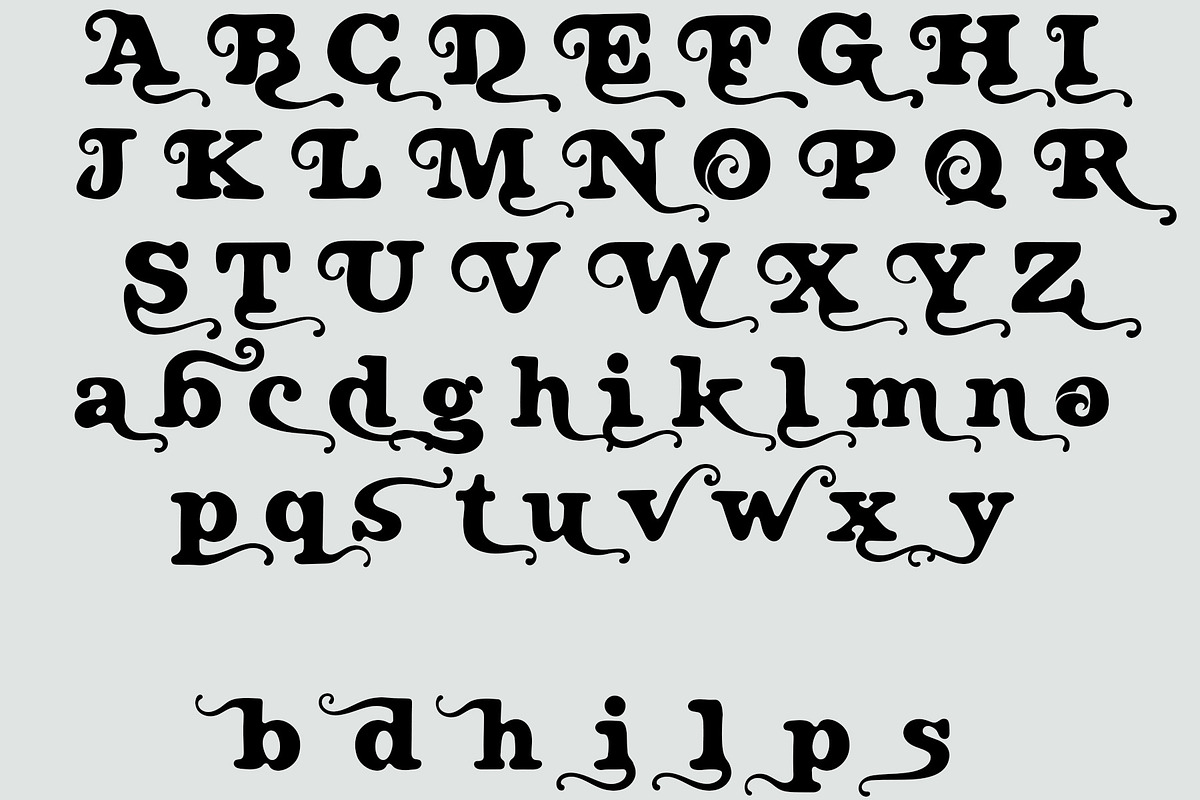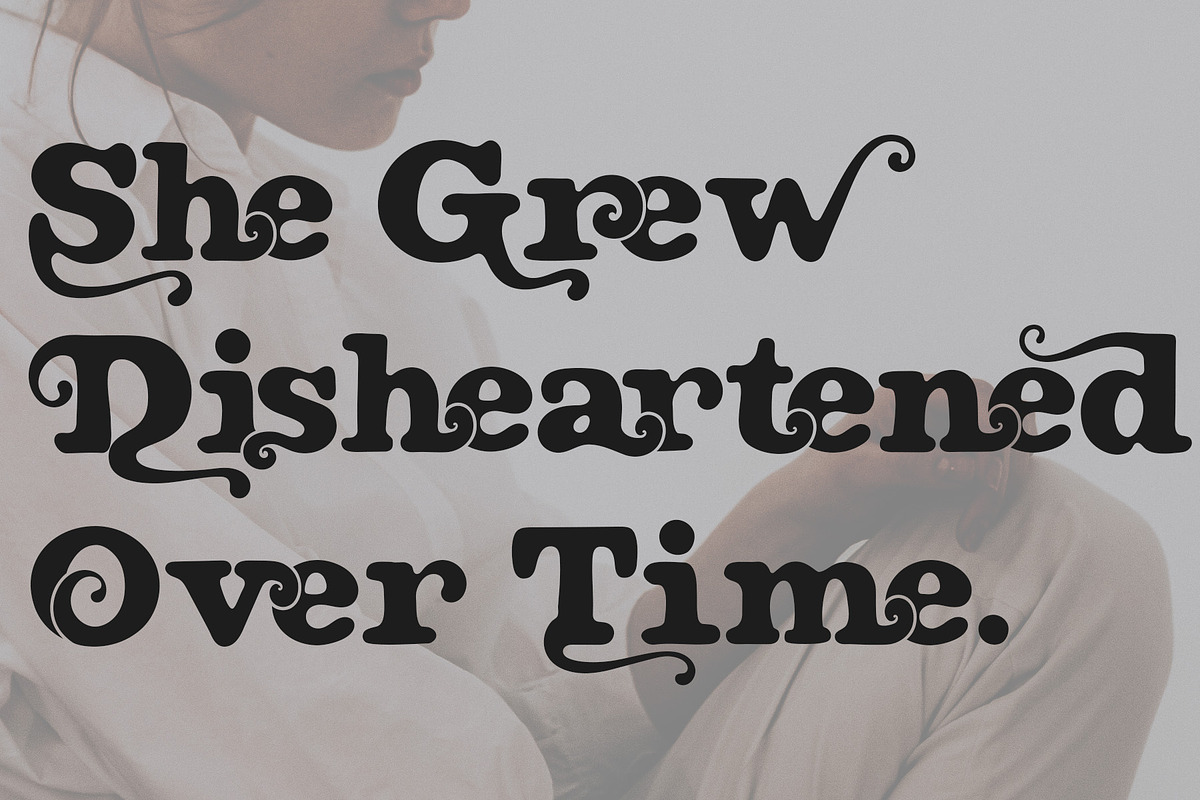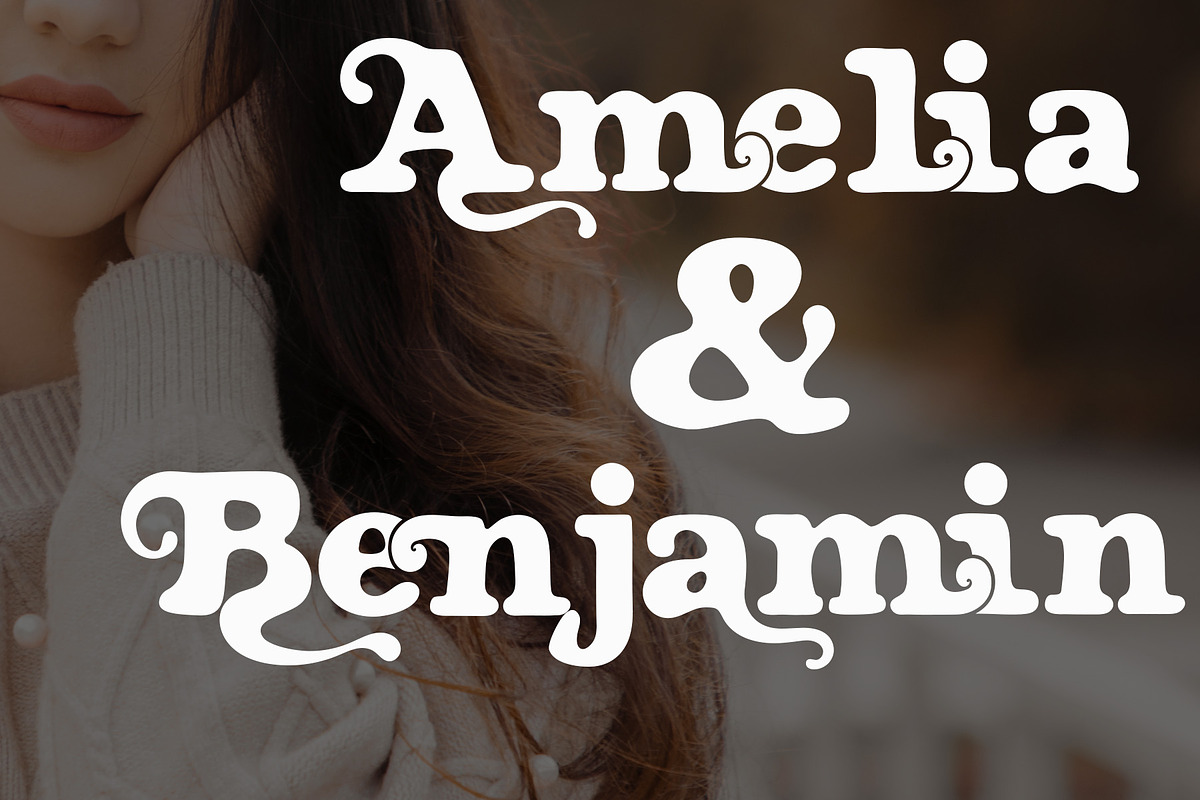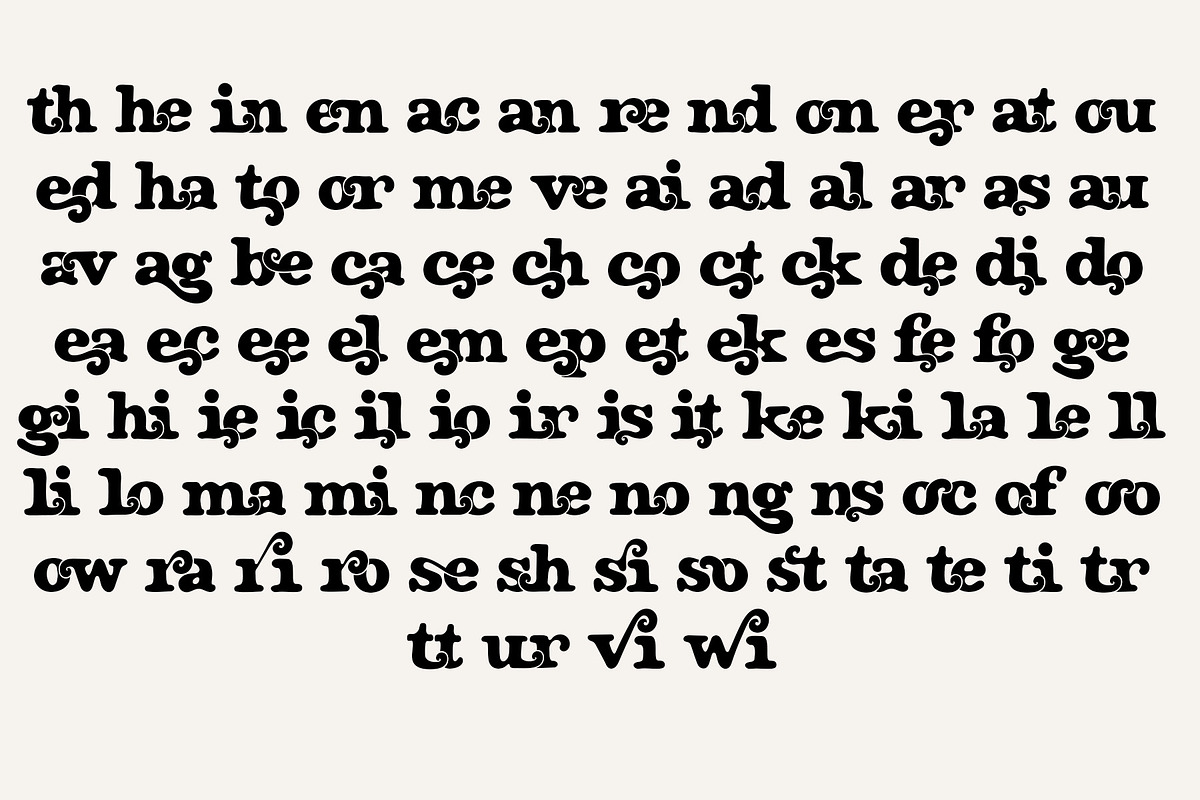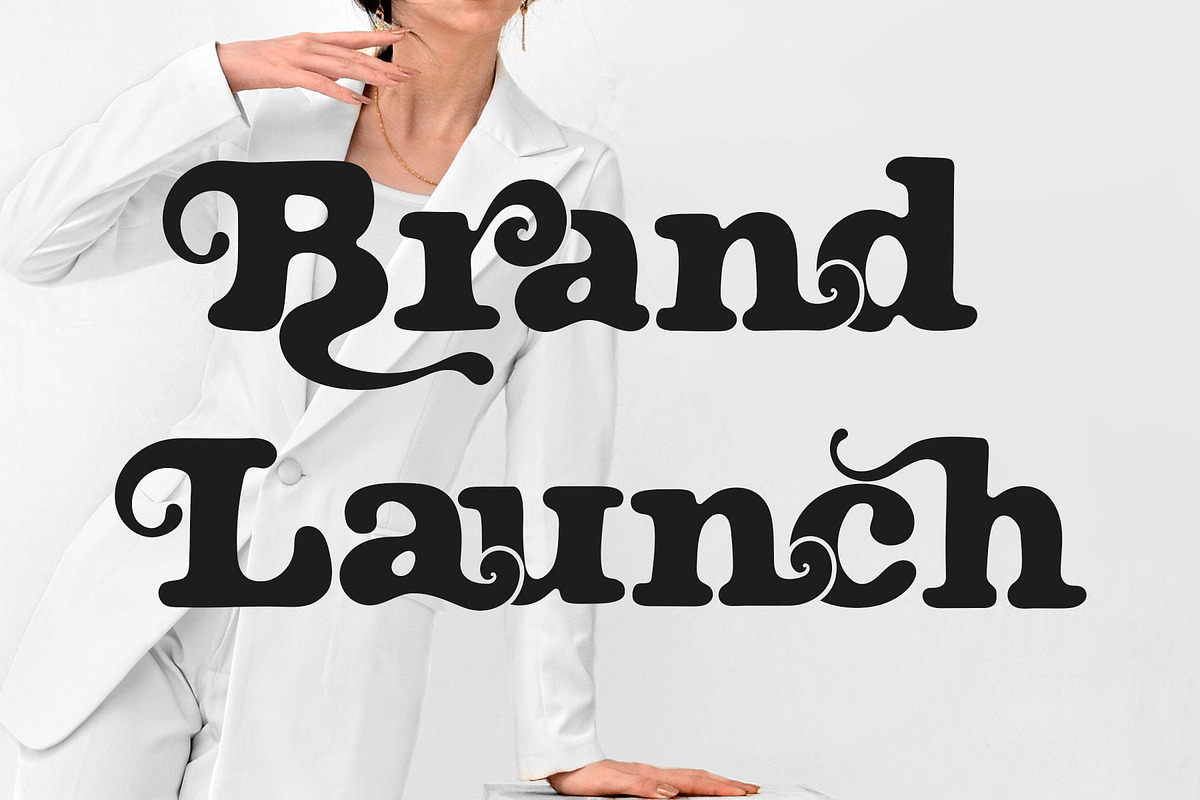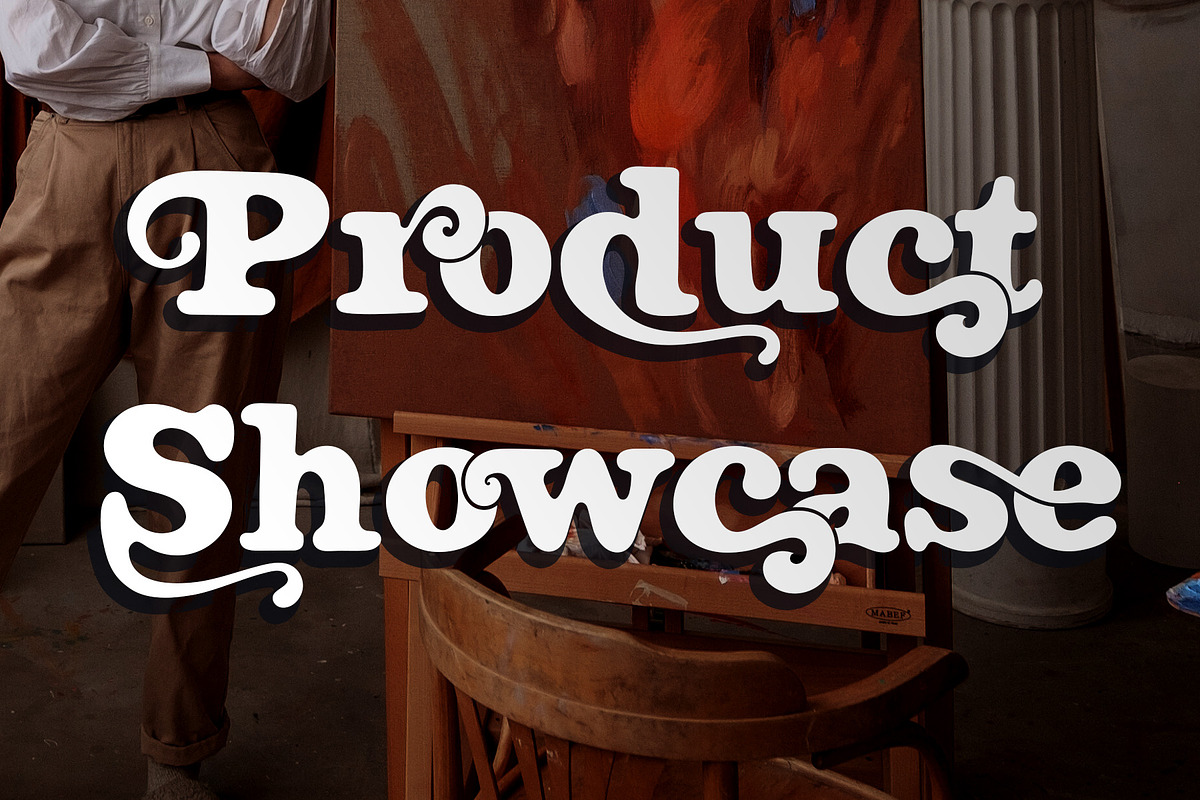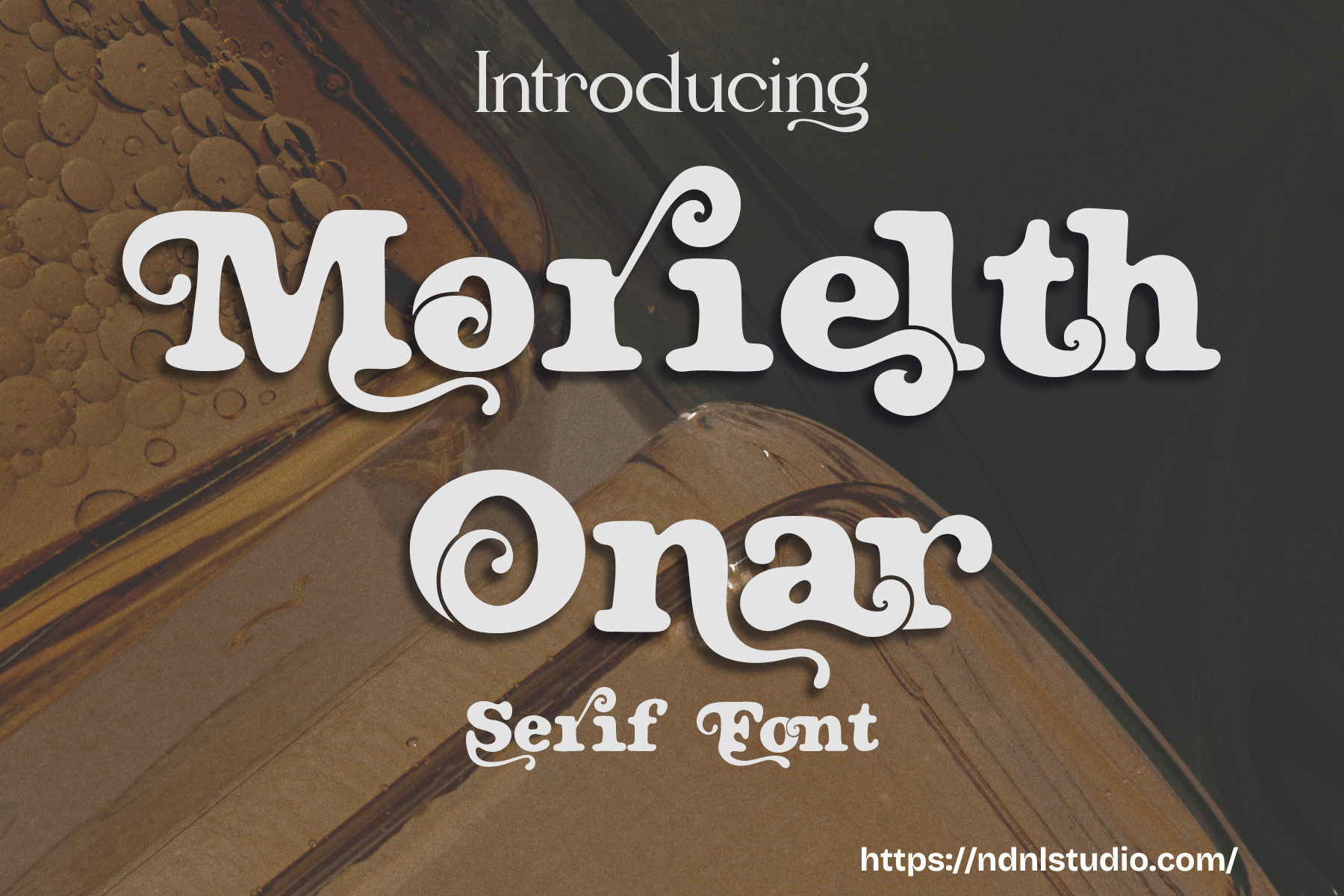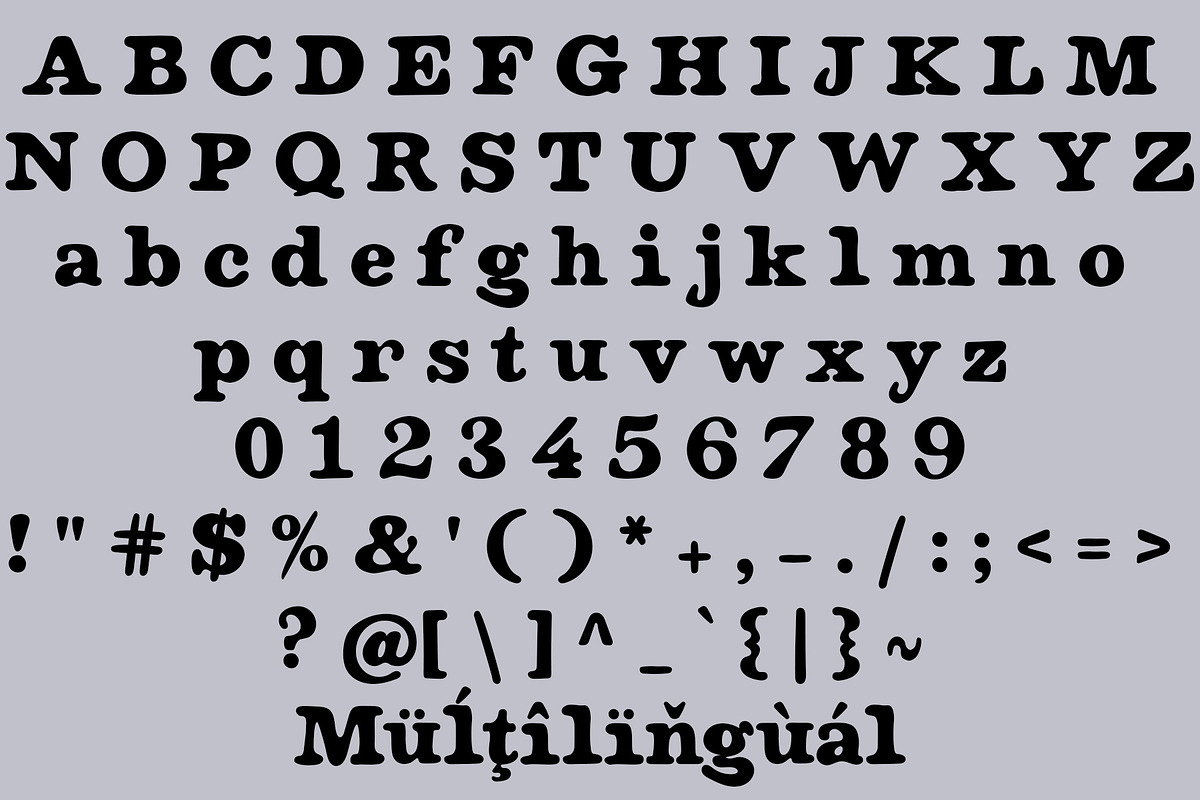
Morielth Onar - Bold Serif Font
Introducing Morielth Onar !
Morielth Onar is a bold and artistic serif font that blends vintage charm with whimsical swirls. Each letter is designed with playful curves and elegant details, making it perfect for retro posters, classic branding, book covers, and creative typography projects. With its decorative touch and expressive style, Morielth Onar brings a sense of fantasy and uniqueness to every design.
If the software you are using does not fully support OpenType features (such as Stylistic Alternates), you can still access the decorative characters of the font using the following method:
Examples:
- Axx → Decorative A (if available)
- aX → Decorative a (if available)
And also:
- AxX → Decorative A2 (if available)
- aXX → Decorative a2 (if available)
- aXXX → Decorative a3 (if available)
To separate ligatures: Insert the shortcut xXx between two characters.
- ab → axXxb → a b
- Character set A-Z